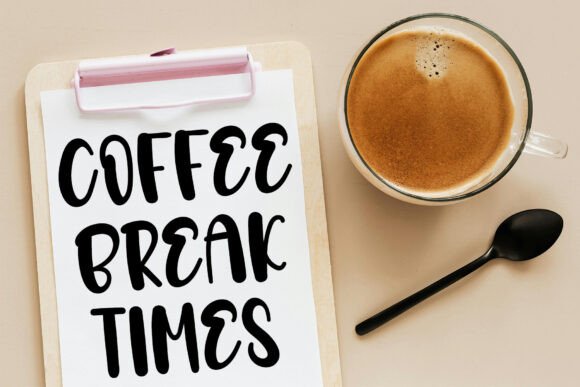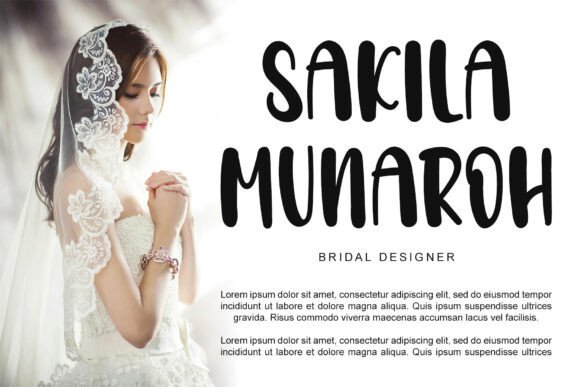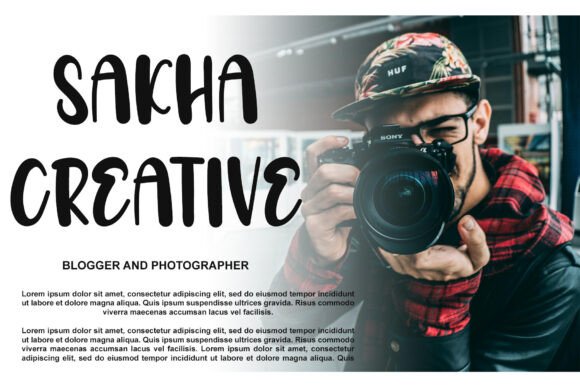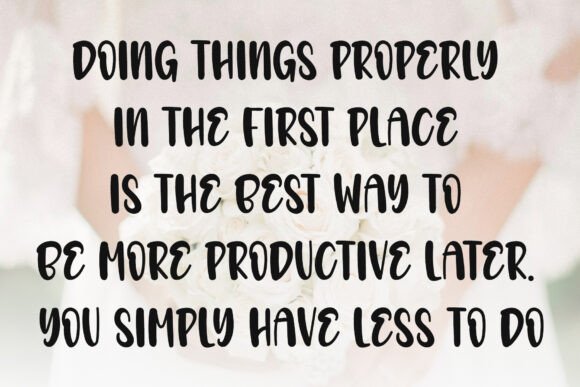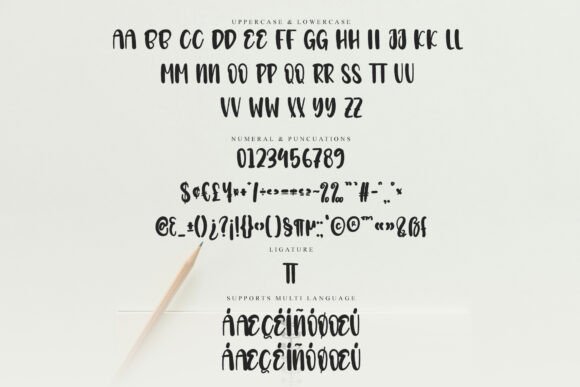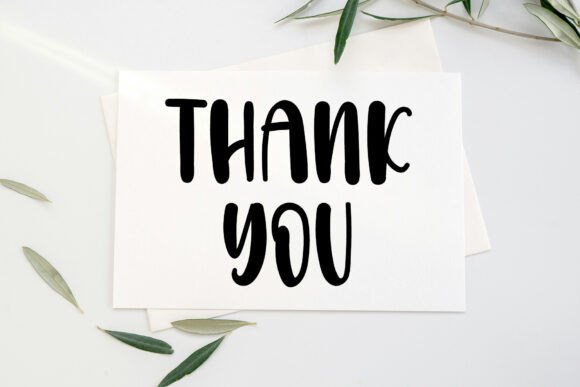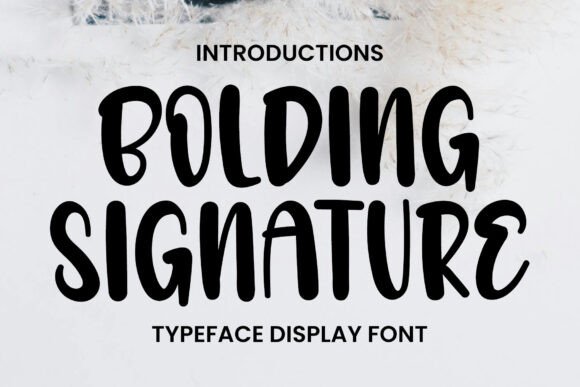
Bolding Signature Font: Elevate Your Designs with a Contemporary Twist
In the world of typography, a font can make or break a design. When it comes to creating eye-catching visuals, the right font can add energy, style, and personality to any project. Introducing Bolding Signature, a bold and captivating script font that’s taking the design world by storm. With its thick strokes and playful curves, this font is perfect for designers and crafters looking to add a contemporary vibe to their work.
The Power of Bolding Signature
Bolding Signature is more than just a font – it’s a statement piece. Its bold and confident strokes are designed to grab attention, making it perfect for posters, branding, and product packaging. Whether you’re a seasoned designer or a crafty DIY enthusiast, this font is sure to elevate your designs and leave a lasting impression.
Key Features of Bolding Signature
• Bold and Captivating: Bolding Signature’s thick strokes and playful curves make it perfect for eye-catching designs that demand attention.
• Contemporary Vibe: This font’s modern style ensures it will fit right in with the latest design trends.
• Versatile: Use Bolding Signature for a wide range of projects, from posters and branding to product packaging and more.
• Easy to Read: Despite its bold nature, Bolding Signature remains easy to read, making it perfect for headlines and titles.
Bolding Signature is a versatile font that’s perfect for a wide range of design applications. Here are just a few ways designers and crafters can use this amazing font:
Poster Design
Create eye-catching posters that demand attention with Bolding Signature. Its bold strokes and playful curves make it perfect for titles, headings, and emphasis text.
Branding and Logo Design
Take your branding to the next level with Bolding Signature. Use it to create bold and memorable logos that reflect your brand’s personality.
Product Packaging
Make your product stand out on store shelves with Bolding Signature. Its bold and contemporary style is sure to grab attention and leave a lasting impression.
Tips for Using Bolding Signature
To get the most out of Bolding Signature, here are a few tips to keep in mind:
Use it as a Headline Font
Bolding Signature is perfect for headlines and titles. Use it to create bold and attention-grabbing text that sets the tone for your design.
Pair it with a Simpler Font
For body text and other smaller elements, pair Bolding Signature with a simpler font to create visual contrast and hierarchy.
Experiment with Colors and Textures
Don’t be afraid to experiment with different colors and textures to add depth and interest to your design.
Bolding Signature is a bold and captivating script font that’s perfect for designers and crafters looking to add a contemporary vibe to their work. With its thick strokes and playful curves, this font is sure to elevate your designs and leave a lasting impression. Whether you’re creating posters, branding, or product packaging, Bolding Signature is the perfect choice for adding energy and style to any project.